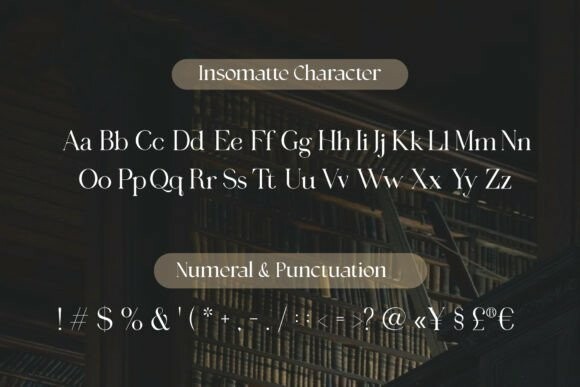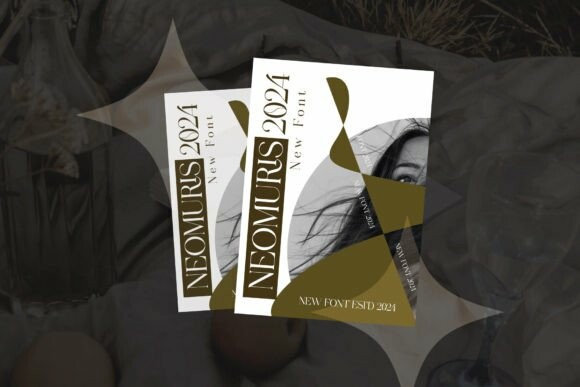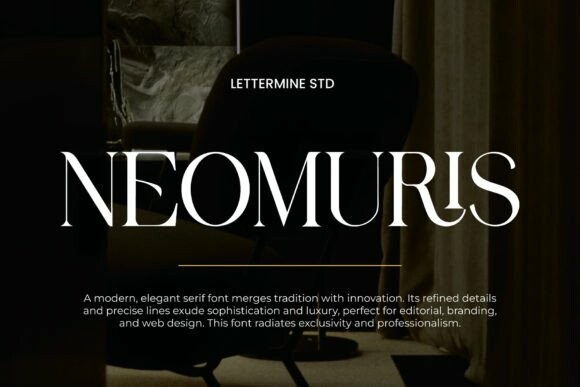
Neomuris Font
Designer: Lettermine
Neomuris Font a refined and elegant Modern Serif font perfect for your creative projects. Designed to elevate your designs with a touch of sophistication.